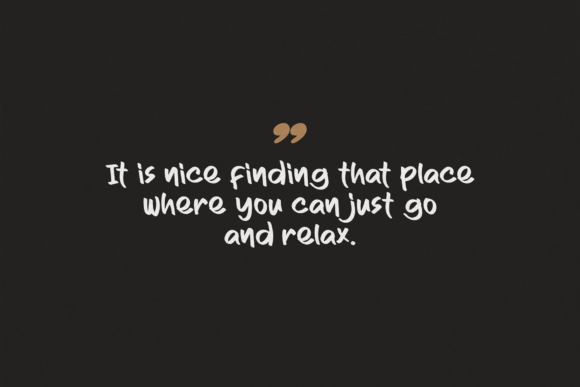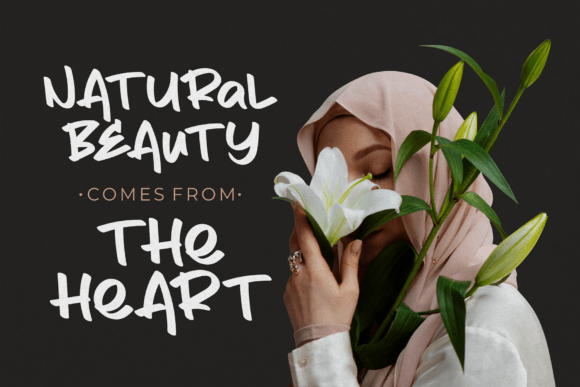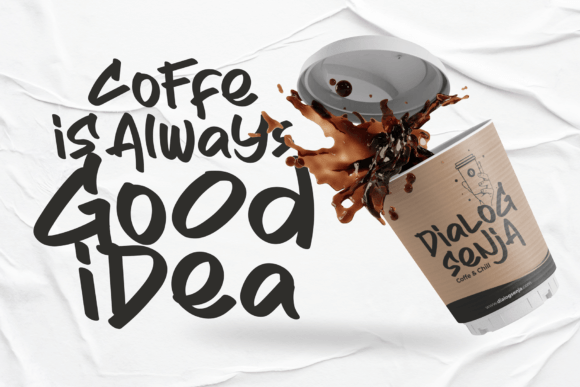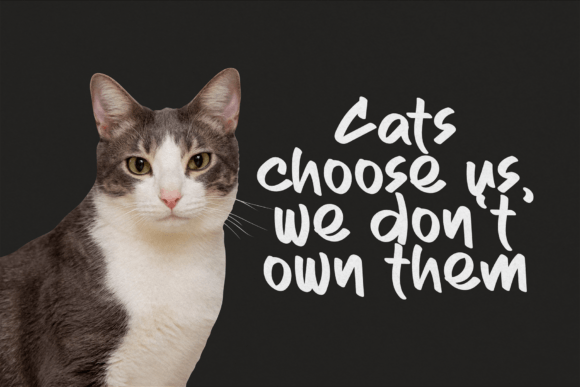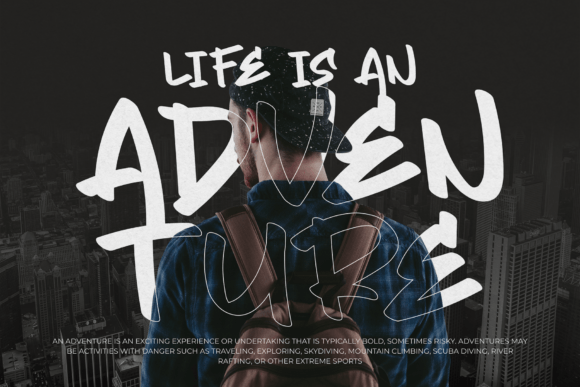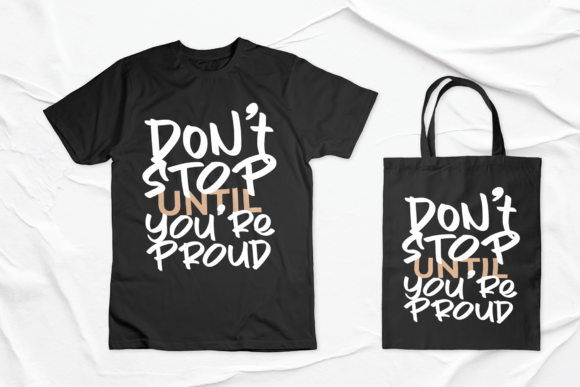
Introduction to Grock Marker Font
Grock Marker is a stylish brush marker font.
Made in combination with hand lettering, it comes with dramatic movement and itโs great for any next creative project that needs a handwritten and natural touch It is ideal for logos, handwritten quotes, product packaging, header, poster, merchandise, social media & greeting cards.